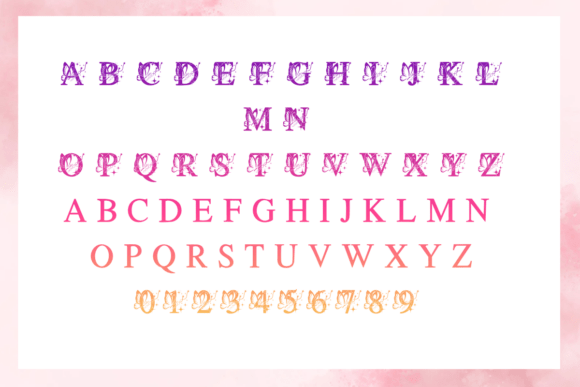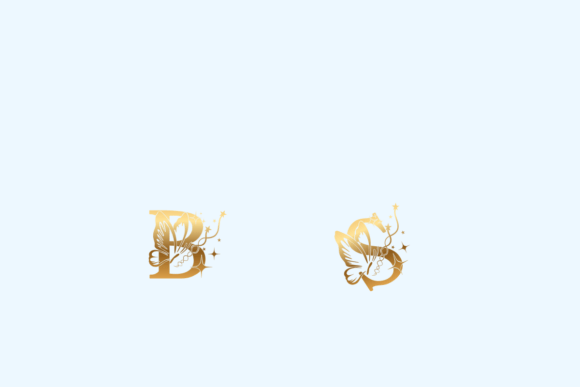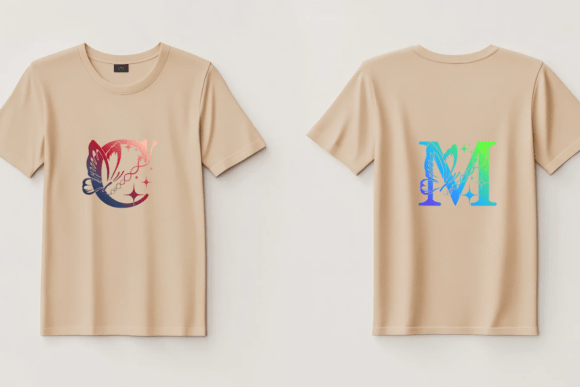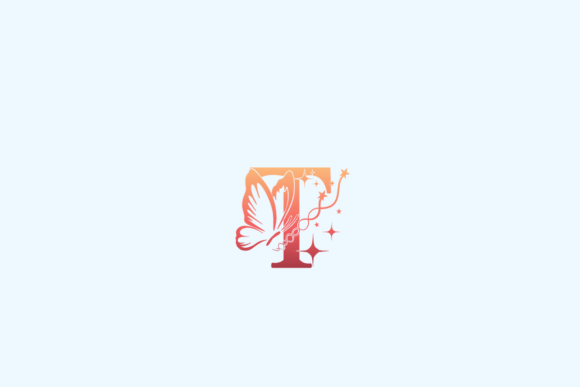
Introducing Butterfly Stars Font: A Lovely Decorative Font for Creative Projects
Are you a designer, crafter, or DIY enthusiast looking for a unique and creative font to add a touch of magic to your projects? Look no further than Butterfly Stars Font, a lovely decorative font that’s sure to delight. In this article, we’ll explore the features and benefits of Butterfly Stars Font, and show you how to make the most of this beautiful font in your creative endeavors.
What is Butterfly Stars Font?
Butterfly Stars Font is a decorative font that’s perfect for adding a whimsical touch to your creative projects. With its delicate butterfly and star designs, this font is sure to capture the imagination of anyone who sees it. Whether you’re working on a craft project, designing a logo or branding materials, or simply looking for a fun and creative way to express yourself, Butterfly Stars Font is the perfect choice.
Features of Butterfly Stars Font
So what makes Butterfly Stars Font so special? Here are just a few of its key features:
- Unique Design: Butterfly Stars Font features a one-of-a-kind design that’s sure to stand out from the crowd. The delicate butterfly and star designs are intricately crafted to create a beautiful and eye-catching effect.
- Versatile: Butterfly Stars Font is perfect for a wide range of creative projects, from crafting and DIY to graphic design and branding.
- High-Quality: Butterfly Stars Font is a high-quality font that’s designed to produce crisp, clear results at any size.
- Experiment with Different Sizes: Butterfly Stars Font looks great at a wide range of sizes, from small and delicate to large and bold. Experiment with different sizes to find the one that works best for your project.
- Combine with Other Fonts: For added visual interest, try combining Butterfly Stars Font with other fonts or design elements. The delicate design of this font pairs well with a wide range of styles and aesthetics.
- Use for a Variety of Projects: Butterfly Stars Font is perfect for a wide range of creative projects, from crafting and DIY to graphic design and branding. Try using it for:
- Craft projects, such as scrapbooking or card-making
- Graphic design projects, such as logos or branding materials
- DIY projects, such as signs or decorations
- Digital projects, such as social media graphics or blog posts
Benefits of Using Butterfly Stars Font
So why should you choose Butterfly Stars Font for your creative projects? Here are just a few benefits:
- Adds a Touch of Whimsy: Butterfly Stars Font adds a touch of whimsy and magic to any project. Its delicate design is sure to capture the imagination of anyone who sees it.
- Stand Out from the Crowd: With its unique design, Butterfly Stars Font is sure to help your project stand out from the crowd.
- High-Quality Results: Butterfly Stars Font produces high-quality results at any size, making it perfect for a wide range of creative projects.
Butterfly Stars is a lovely decorative font. Add it to your creative projects and enjoy the results!